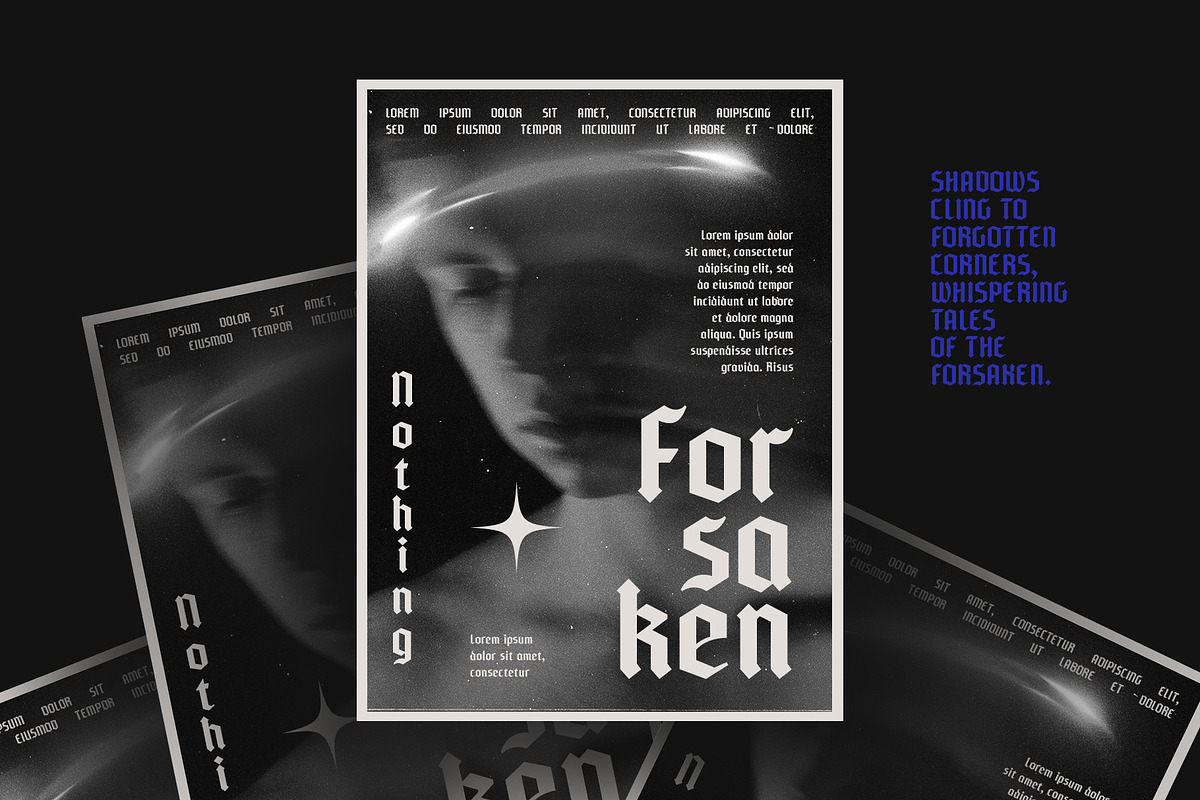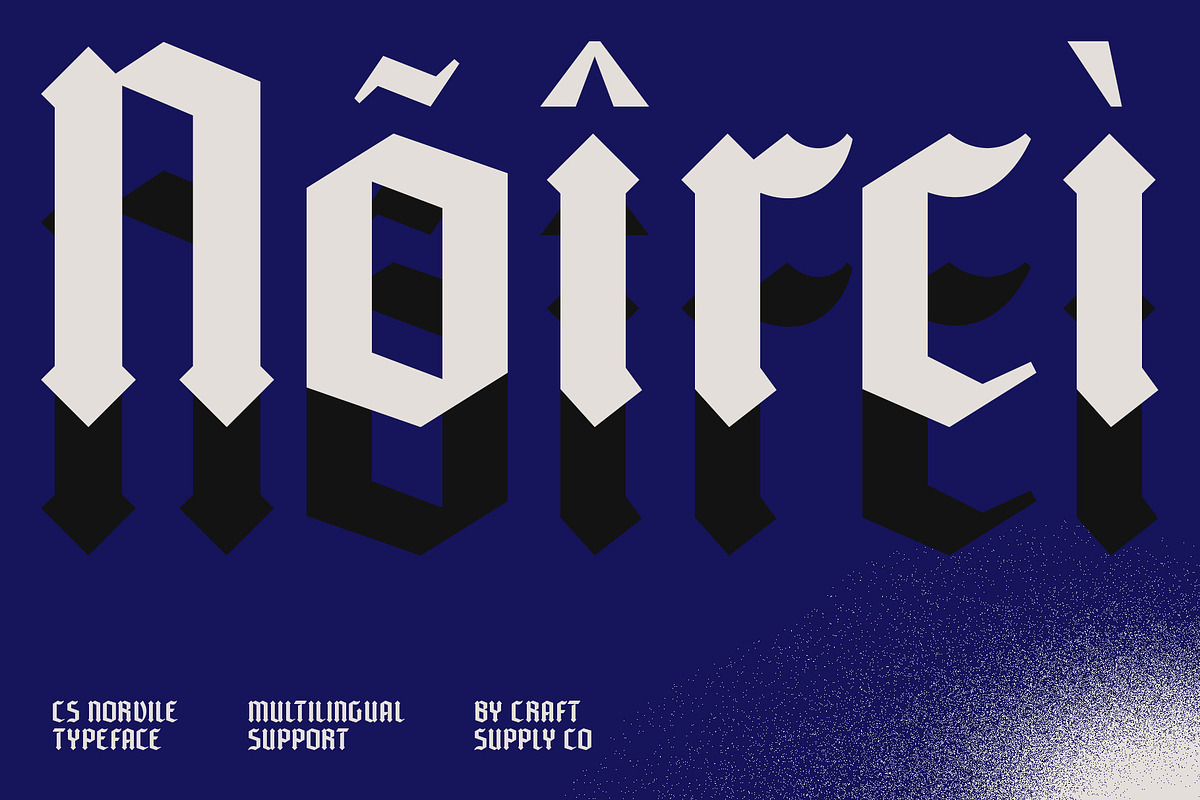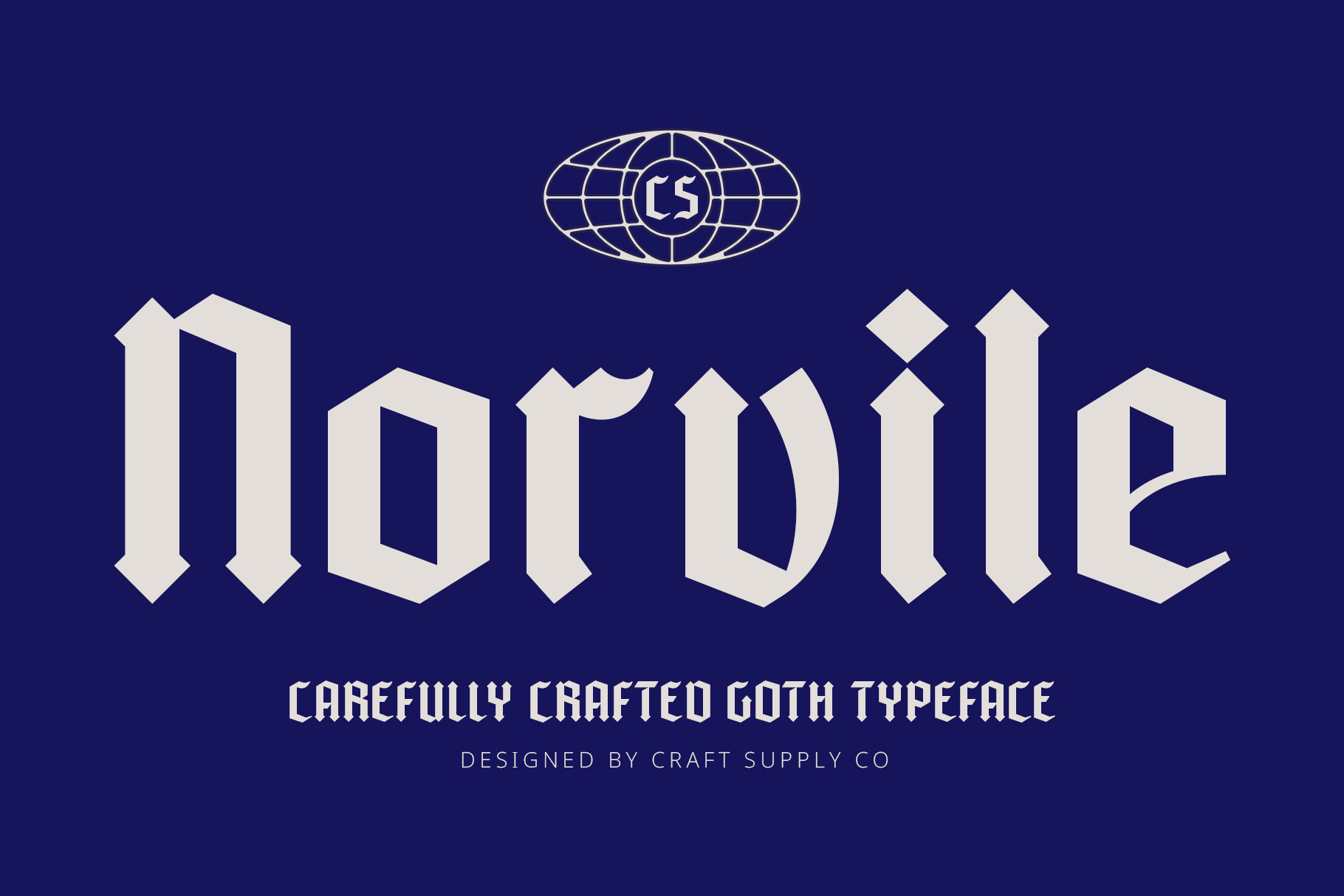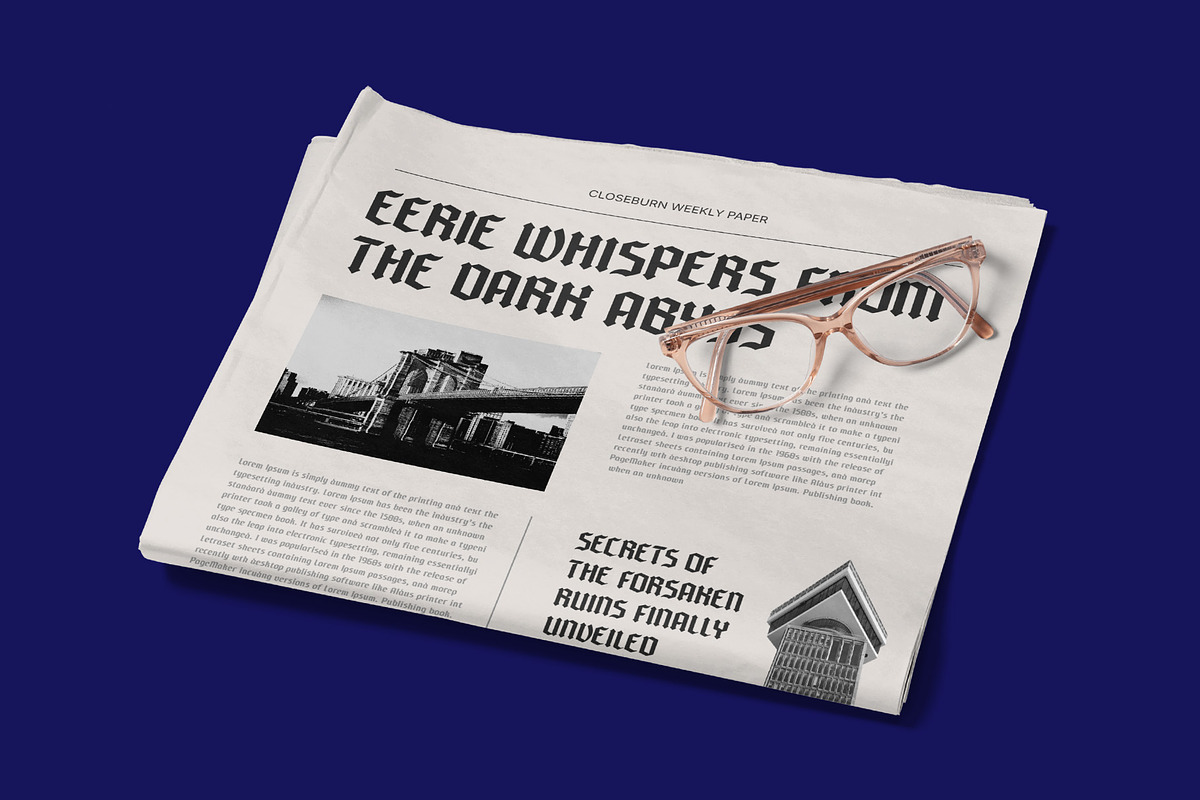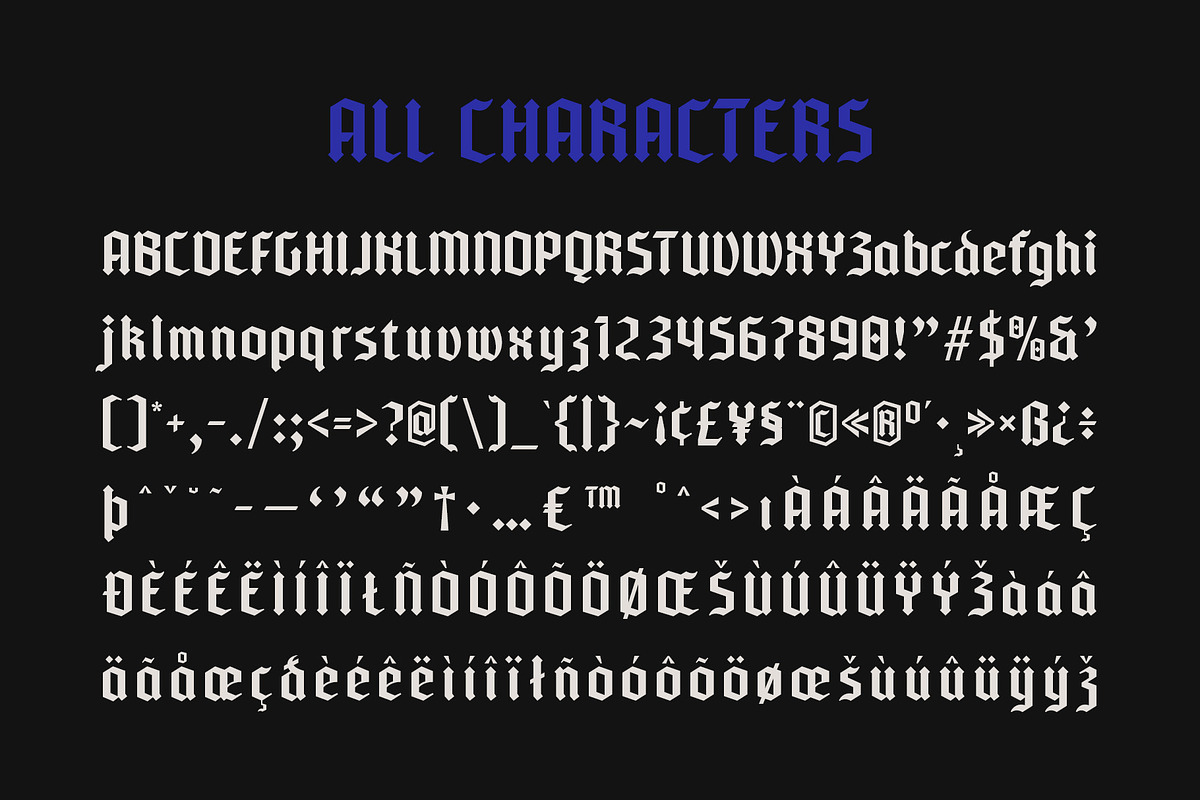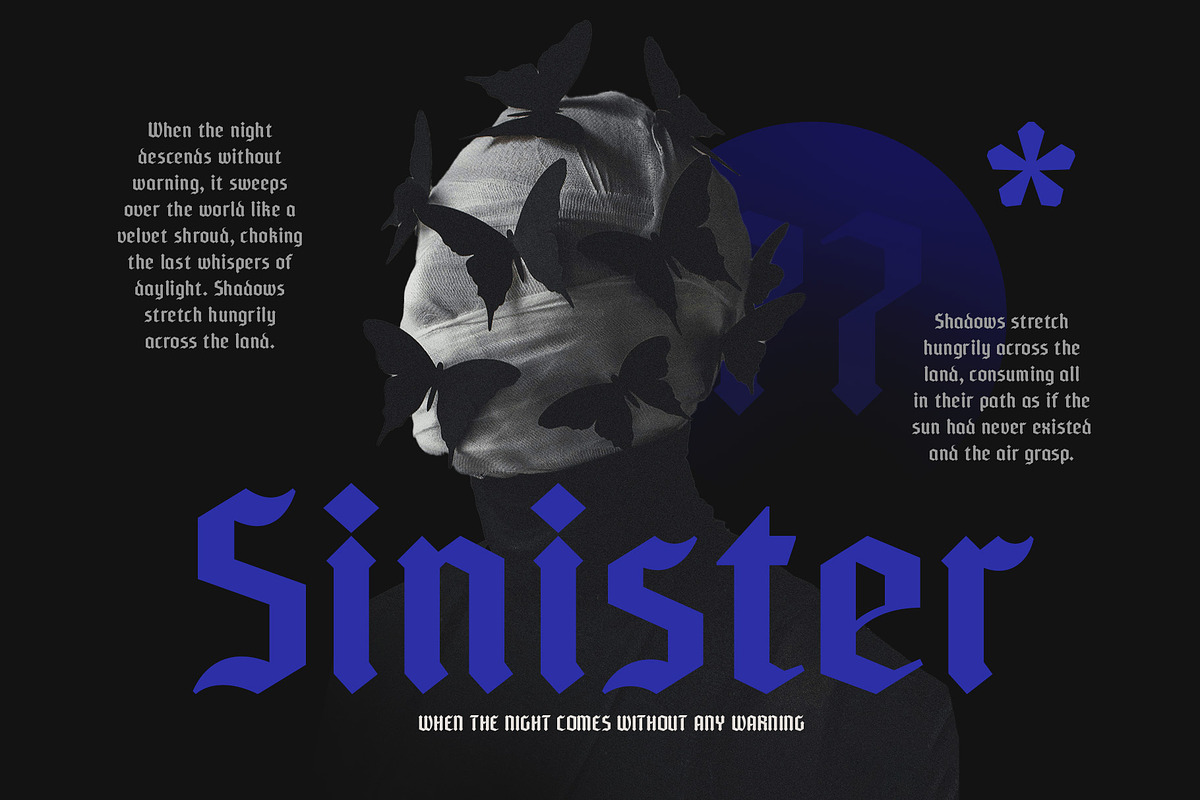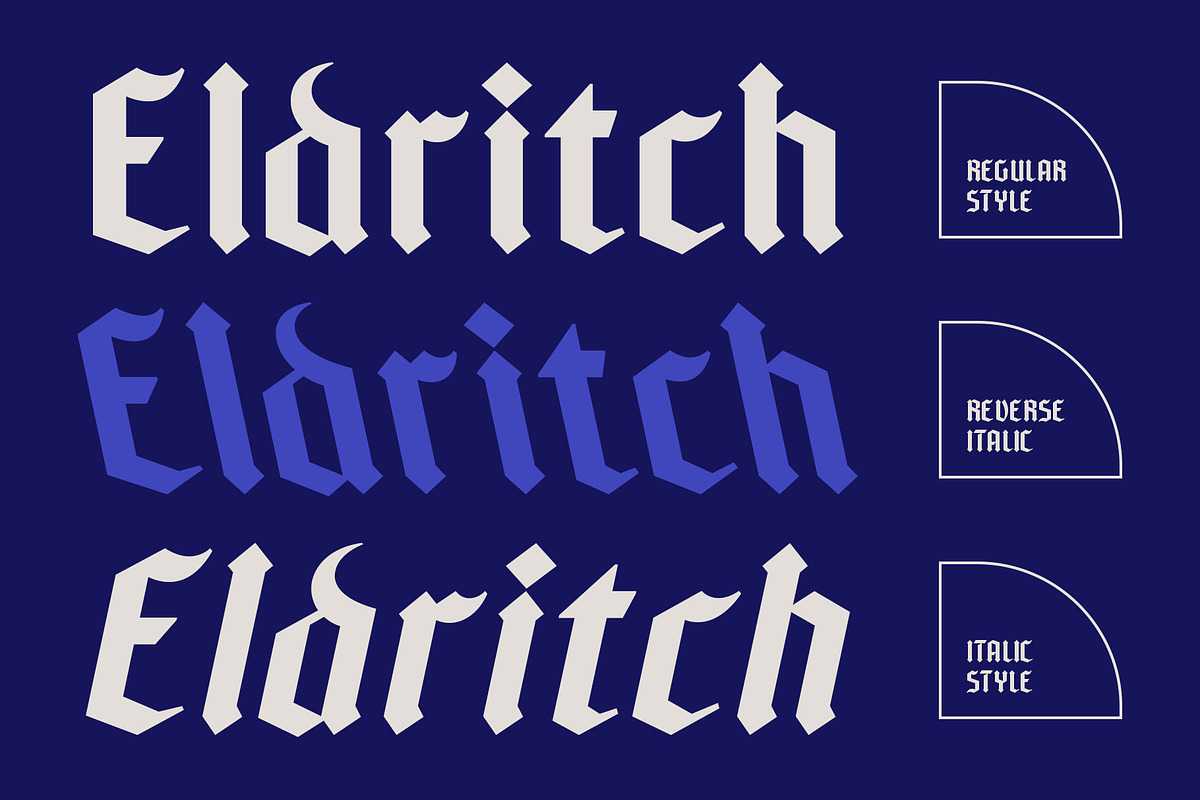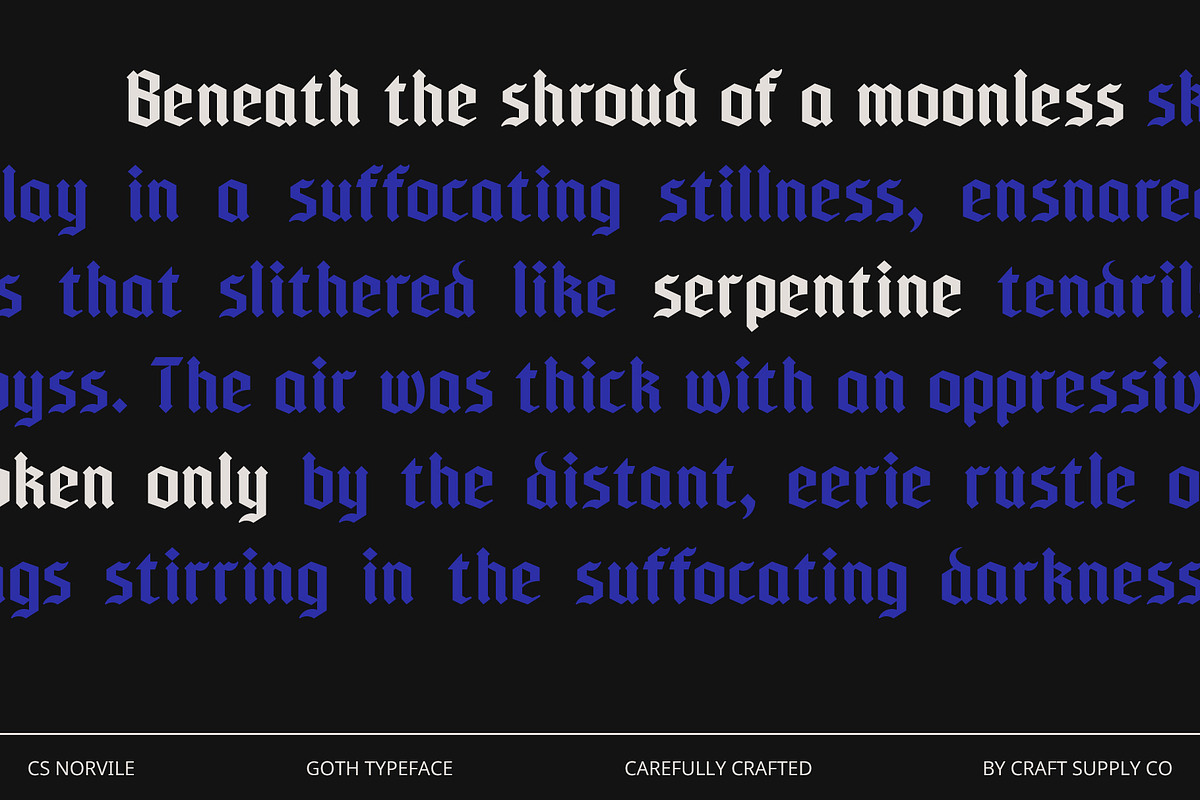
CS Norvile – Gothic Font
CS Norvile – Gothic Font: Timeless Elegance with Medieval Flair
Gothic Display with Sharp and Ornate Letterforms CS Norvile is a Gothic display font that embodies the essence of vintage sophistication with its sharp, ornate, and meticulously structured letterforms. This font draws inspiration from medieval and classic design elements, featuring intricate details and a strong contrast between thick and thin strokes. The result is a font that not only exudes historical grandeur but also captures the eye with its bold, dramatic flair.
Reflecting Vintage and Historical Aesthetics Designed to evoke a sense of old-world charm, CS Norvile is ideal for projects that aim to convey a timeless, historical atmosphere. Its elaborate Gothic style makes it perfect for antique posters, vintage branding, and designs that seek to reflect the grandeur of bygone eras. The font’s intricate details and strong contrast provide a powerful retro feel, bringing a touch of medieval elegance to modern designs.
- CS Norvile Regular
- CS Norvile Italic
- CS Norvile Reverse Italic